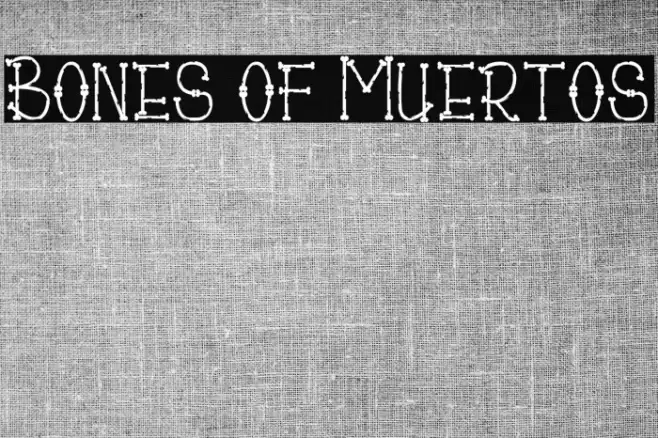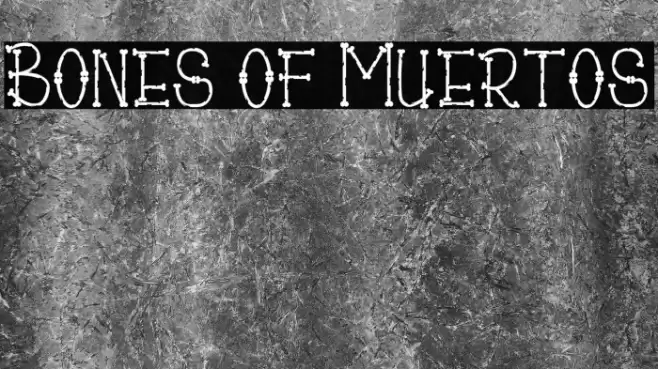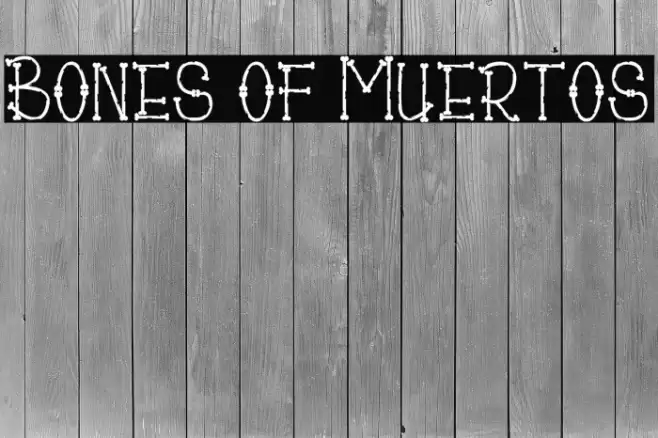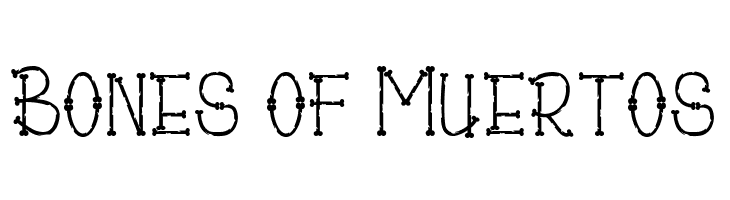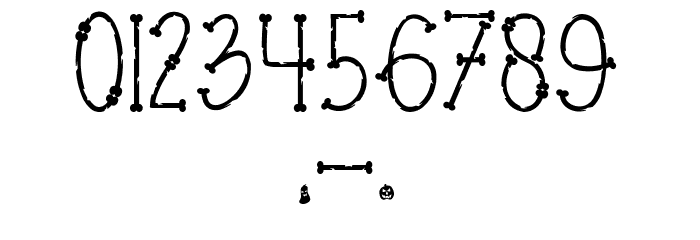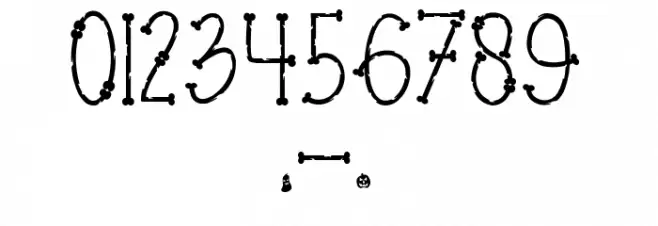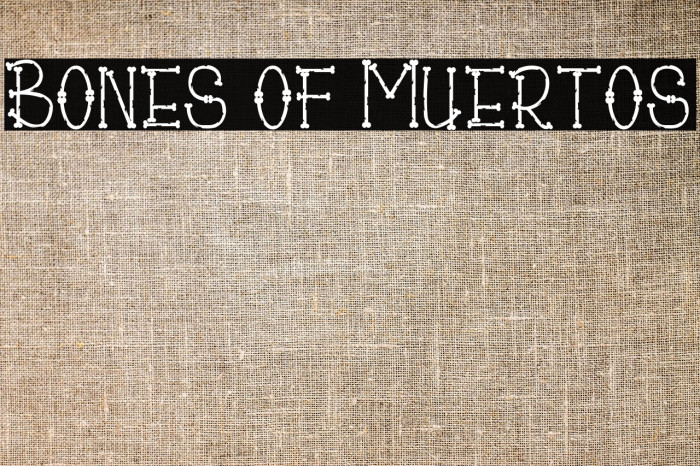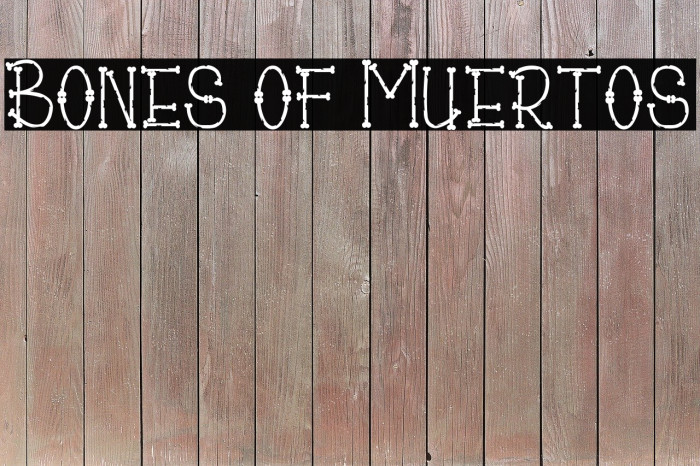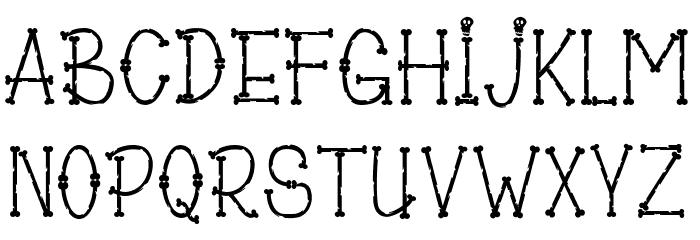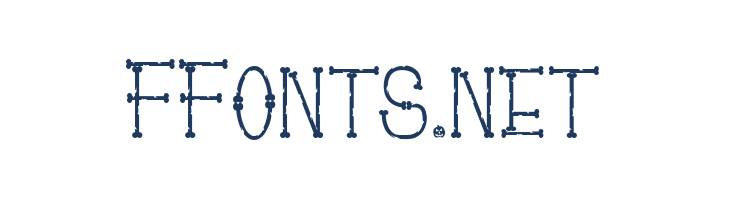
Bones of Muertos Font
Bones of Muertos Description
This font features a unique and playful design that mimics the appearance of bones, creating a skeletal structure for each character. The letters are composed of lines and dots, resembling joints and bones, which gives it a distinctive and quirky look. The uppercase and lowercase letters maintain a consistent style, with rounded edges and a slightly irregular form that adds to its charm. The numbers and special characters follow the same theme, ensuring a cohesive appearance across all glyphs. This font is perfect for projects that require a fun, spooky, or Halloween-themed aesthetic.
A playful, bone-themed font with a quirky, skeletal design from Decorative fonts.
- Proposed Projects: Ideal for Halloween invitations, spooky-themed posters, children's books, and creative branding projects.